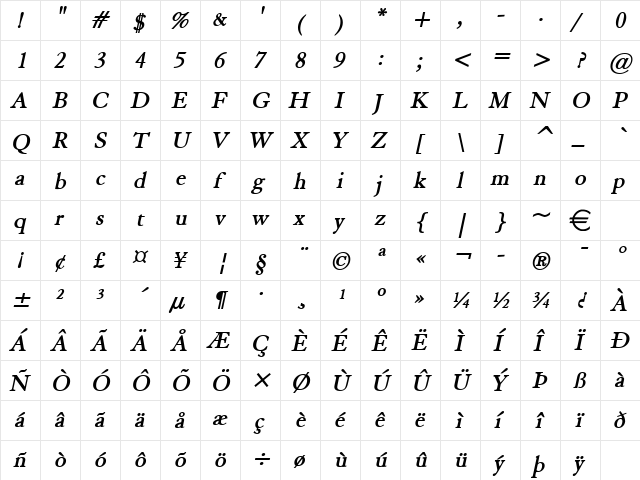
Elephant BoldItalic Font Preview
Design Context for Elephant Typeface
Elephant takes a measured approach to typography — its balanced proportions and neutral character make it a reliable workhorse for both digital and print work. Its italic angle brings a sense of urgency and motion to the letterforms. Its bold stroke weight gives it real presence on the page.
Pro Tip: Try Elephant for annotation and caption copy alongside an upright companion — the contrast in angle creates a dynamic but ordered typographic system.